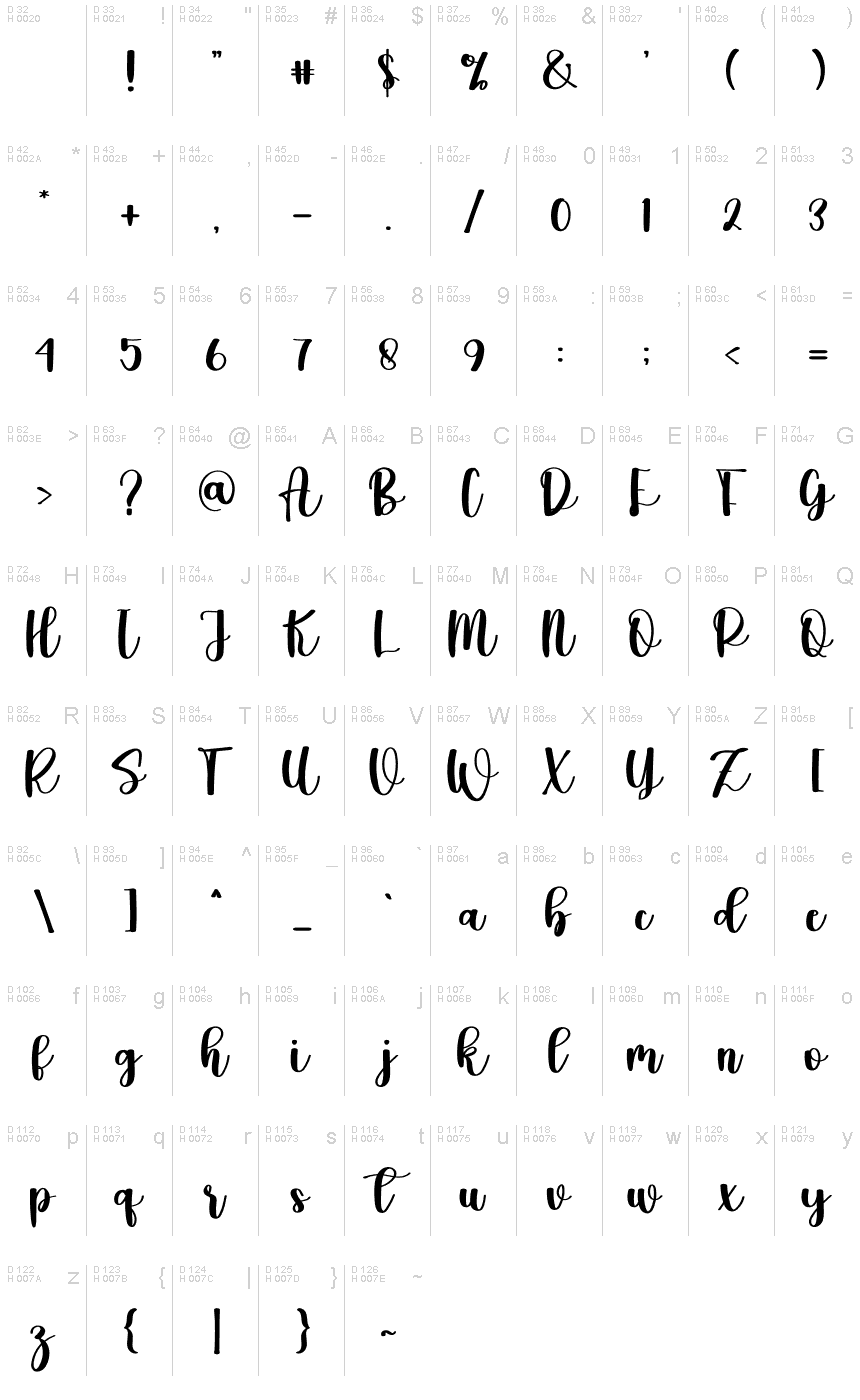
Happiness
Introducing Happiness - a cute calligraphy font designed by FreshtypeINK! Perfect for adding a unique touch to invitations, social media posts, and other creative projects. Express your creativity with this beautiful font!